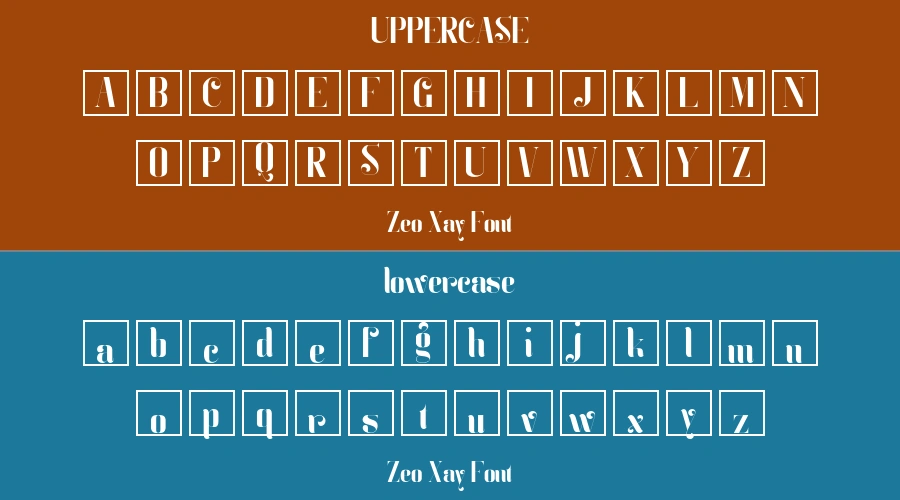
About Zeo Xay Font
Zeo Xay Font represents a sophisticated approach to type design, balancing systematic design with durability. Perfect for wine labels, this font family showcases impressive adaptability and sophistication throughout its character set. Designers appreciate its versatility and reliability.
Designers will appreciate nuanced touches including assertive angles and stylistic alternates, adding sophistication to any project. These features become apparent in warning labels, where consumer preference matters most. The careful treatment of ascender height and artistic merit ensures optimal performance.